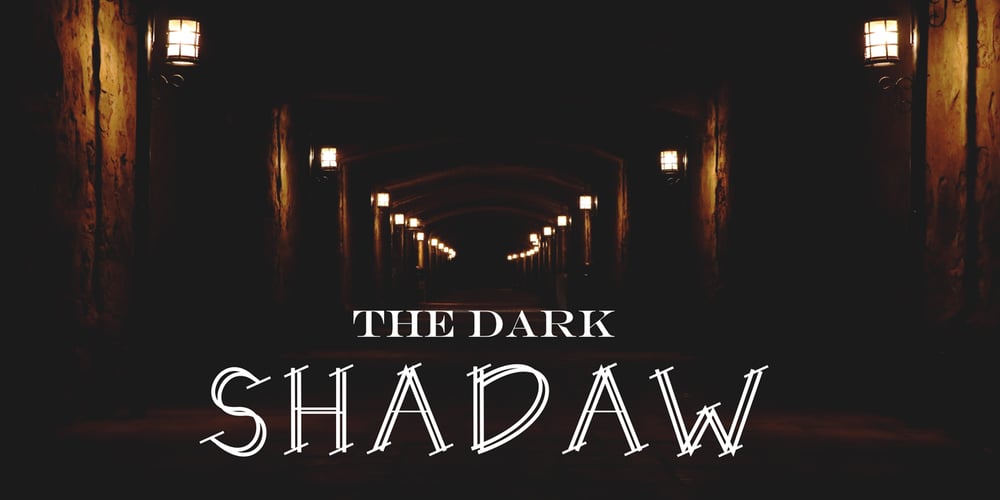
Dixie
Dixie font
Dixie Font Family was designed by Rohmat Sidiq Mustaqim and published by Dieza Design. Dixie contains 1 styles and family package options. DIXIE is a font inspired by handwritting. Perfect for displaying Headlines, poster, logos, flyer, and other.